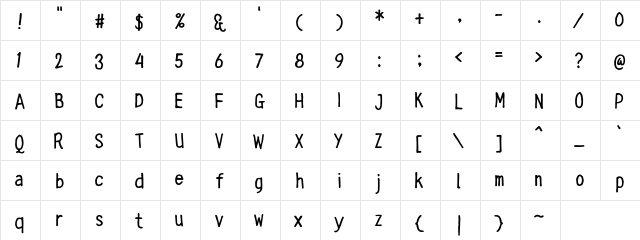
Ring Town Regular
| Foundry | Ijem_pirate_Ferdiansyah |
| Designer | Ijem_pirate_Ferdiansyah |
Design Context for Ring Town Typeface
Ring Town offers clean, dependable letterforms without strong stylistic allegiance, making it a practical choice for designers who need flexibility.
Pro Tip: Pair Ring Town with a font of contrasting weight or personality to build a more expressive typographic hierarchy.